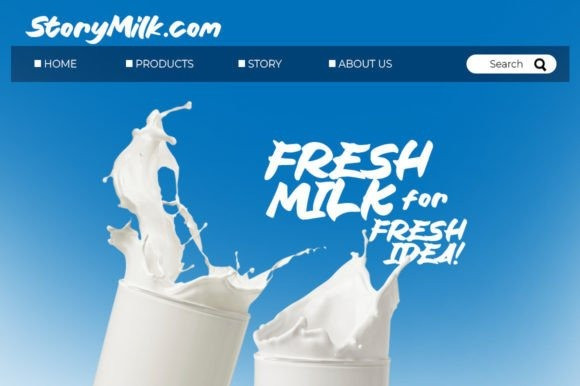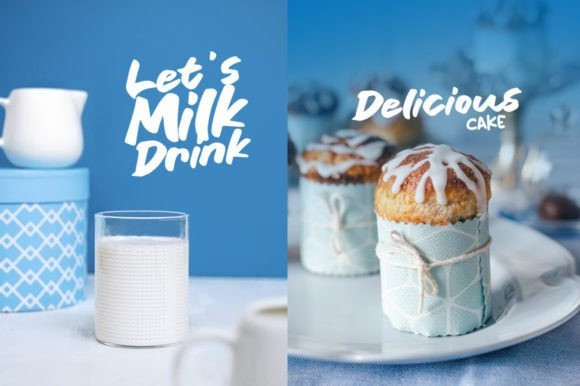
Block Ride Font
Block Ride Brush Font is a fun handwritten font duo (script and display) perfect for posters, logos, magazines, book covers, banners, and many more! Get this amazing typeface, and use it to create lovely designs!